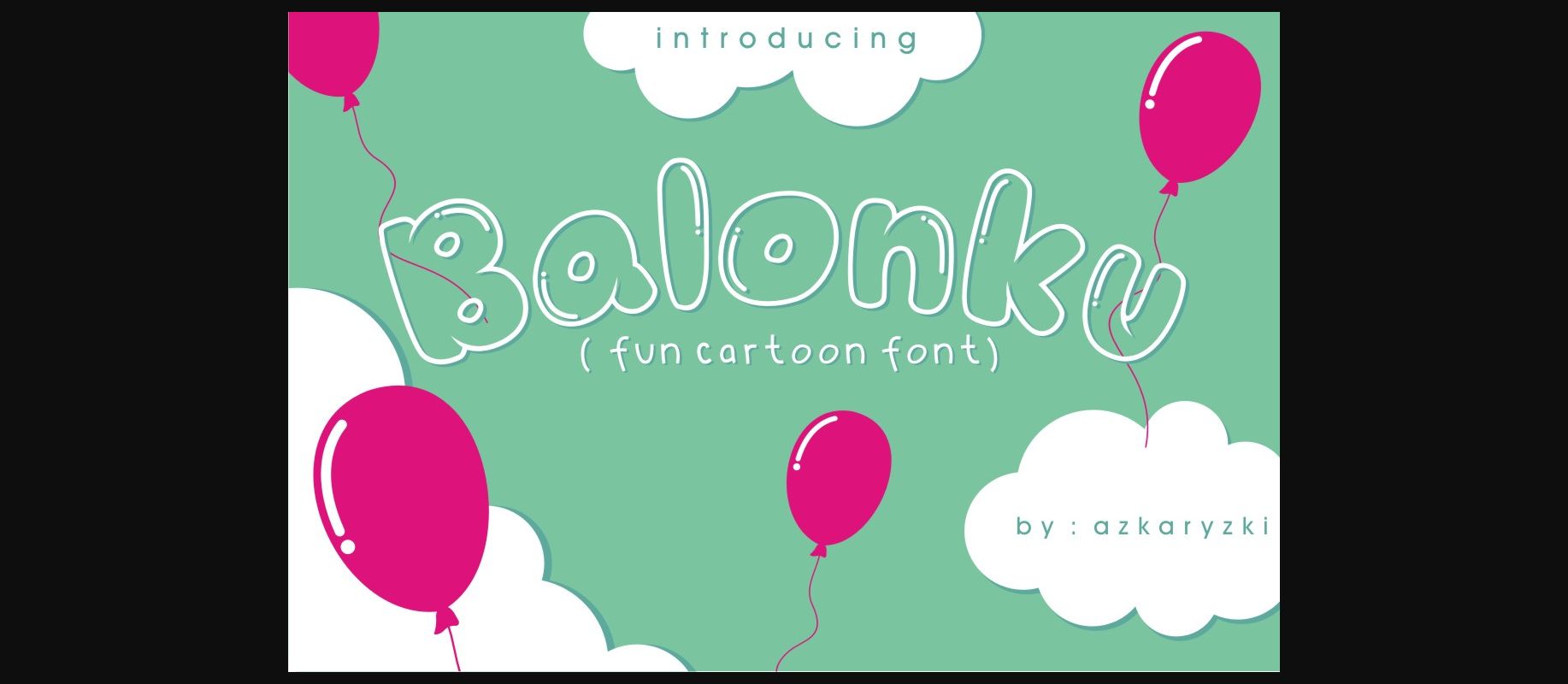
Balonku Font
About Balonku Font
The Balonku is a decorative font in the shape of balloons and soap bubbles. It can be used for kids themed designs, birthday parties, and every other design which needs a playful touch!